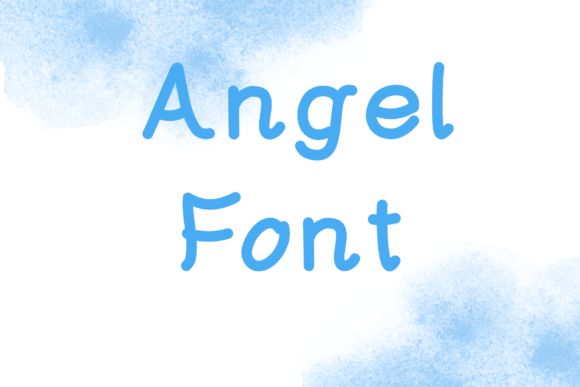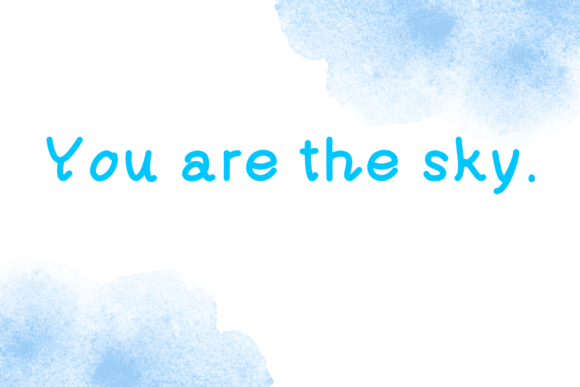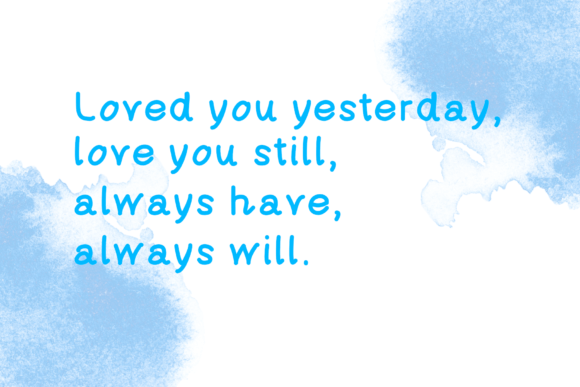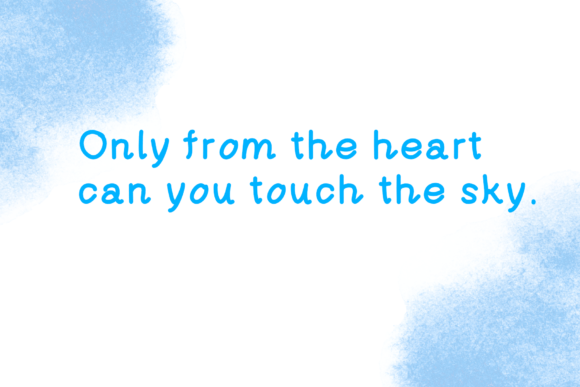
Angel Font
About Angel Font
Angel font is a charming handwritten typeface created from real handwriting, giving it an authentic and personal touch. This font is ideal for projects geared toward children, educational materials, school crafts, and a variety of creative endeavors. Its playful and natural look helps bring warmth and friendliness to any design.
Authentic Handwritten Style
The Angel font captures the spontaneity and charm of genuine handwriting. Its casual strokes and childlike character make it especially suitable for materials that require an inviting and easy-going feel. The font’s natural imperfections add personality, making designs feel more approachable and relatable.
Ideal Uses for Angel Font
This versatile font works well for:
• Children’s books and educational worksheets
• School projects and crafts
• Kids’ party invitations and decorations
• Learning apps and websites
• Creative posters and activity sheets
Use Angel fon to add a genuine and friendly vibe to your kid-focused designs.
Why Choose Angel Font?
Designers love Angel for its:
• Authentic handwritten look based on real handwriting
• Playful, approachable style perfect for kids and education
• Versatility across print and digital platforms
Add Warmth and Fun to Your Designs
Typography plays a crucial role in setting the tone. The Angel fon infuses designs with a warm, playful energy that appeals to children and educators alike. It helps your projects feel fun, personal, and engaging.
Final Thoughts on Angel Font
In summary, Angel fon is a genuine handwritten typeface perfect for kids’ and educational projects. Add Angel to your font collection to create warm, fun, and approachable designs.